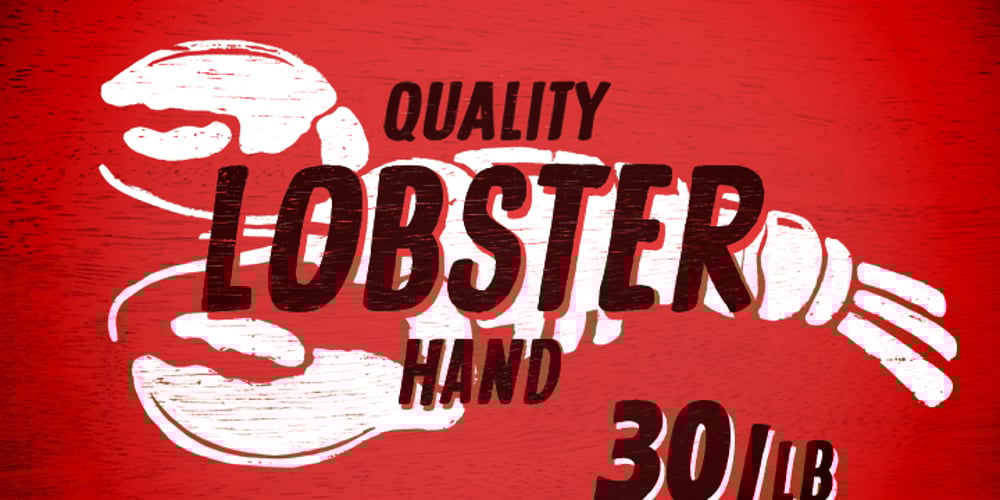
Lobster Hand Font Family was designed by published by Brian Magner. Lobster Hand contains 2 styles and family package options. Lobster Hand is a great hand painted face. Inspired by found signage this true type font has a vintage hand painted feel and is effortlessly original. Featuring two options for every letter you can create a huge combination of typographic alternates. Lobster Hand would be great for signage, drop caps, numerals, titles, logos, packaging, menus, etc. Available in Italic and Regular.